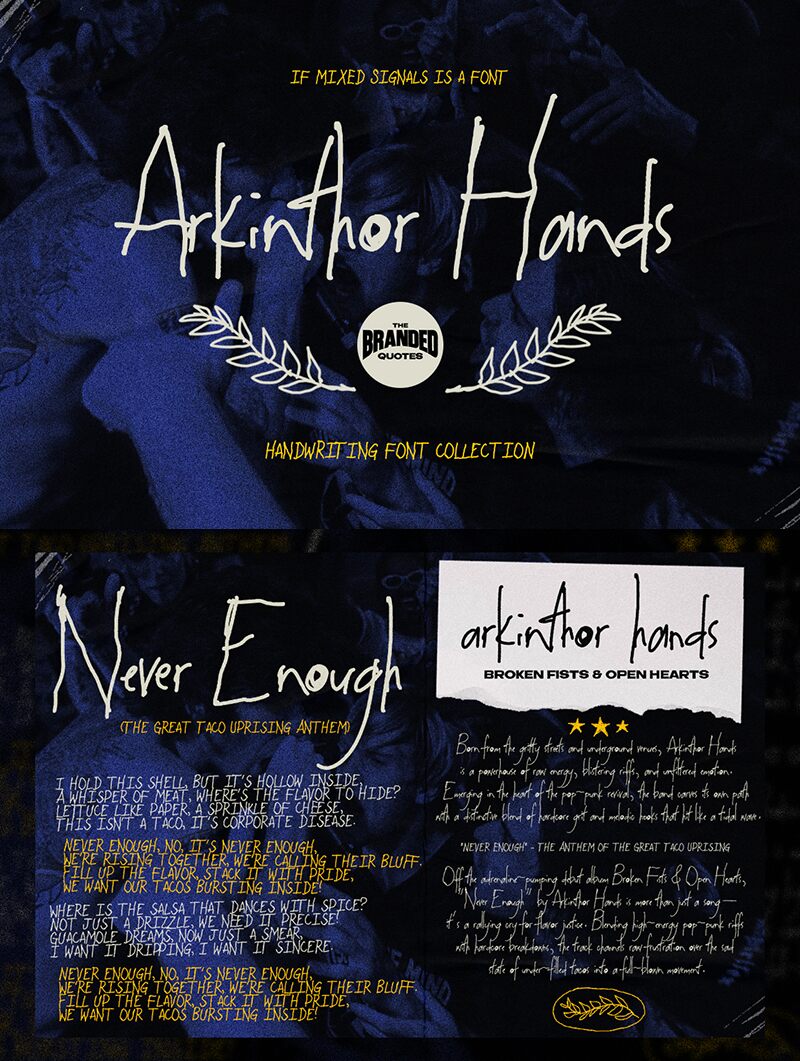
Arkinthor Hands font family is a free handwritten font collection by The Branded Quotes, developed with the intention of sprucing up your design projects. Exuding a handwritten appearance, the family reflects an irregular line flow characterized by a dynamic energy. It captures an expressive feel with raw texture, artistic vibes, modern urban influence, casual yet bold statement, and an edgy aesthetic.
Suitable for creative projects, the font is a great choice for bold and unconventional projects, both professional and personal. Visualize headlines or titles that capture the eye and spirit! These can go on magazines, newspapers, and sites. Design covers that highlight your fictional characters or display their personalities with bios and character development sheets. You can even use it for game design projects.
Rediscover the emotional energy of the good old days when branding held a deeper emotional connection. Scan your photos and enhance them with Arkinthor Hands! This digitally-created handwriting font features a unique raw linework, and its carefree style makes it both unconventional and subtly attractive.
Arkinthor Hands Regular includes both uppercase and lowercase characters, while Arkinthor Hands Heavy offers a bold version of the regular font. For added versatility, Arkinthor Hands Alternates features lowercase alternates and ligatures, and Arkinthor Hands Alternates Light provides a lighter version of the lowercase alternates.
Additionally, Arkinthor Hands Capitals contains uppercase characters and their corresponding alternates, and Arkinthor Hands Caps Heavy is the bold version of the capitals, perfect for making a strong statement. For a more personal touch, Arkinthor Hands Signature offers a stylish script version of the font.
Features include ligatures, punctuation, and multilingual support.